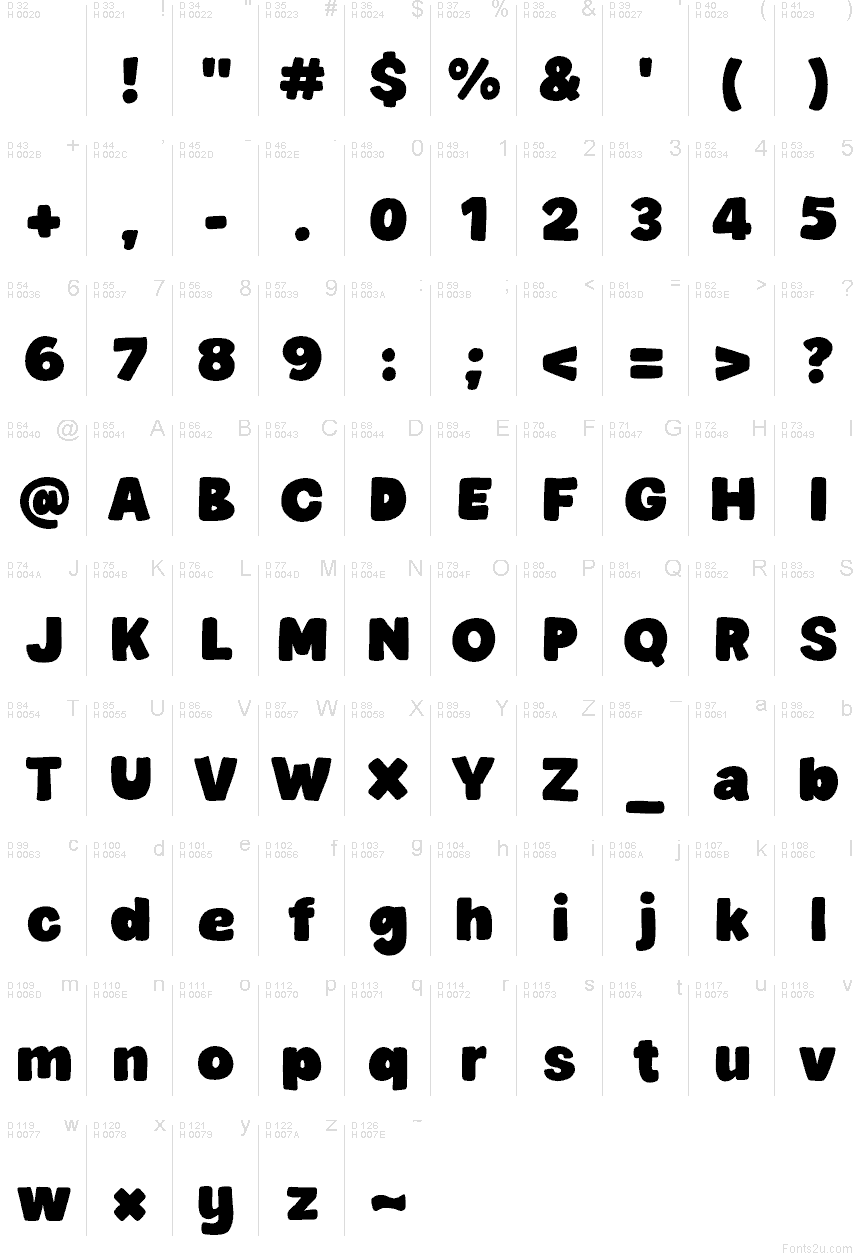
Midnight Society
Midnight Society font by MJType is a free cartoon display typeface with a cozy, slightly spooky charm. Its bold, rounded shapes feel like puffy ink blobs glowing in the dark, softening every word with a friendly, storybook energy. The letters sit close and chunky, giving headlines a strong, unified voice that still feels playful rather than loud.
Using Midnight Society, you can bring instant character to kids’ book covers, Halloween party posters, classroom materials, playful logos, streaming thumbnails, and quirky social graphics. This free font shines when it’s big and bold, where its pillowy curves and inky weight can really breathe. For a simple pairing, match Midnight Society with a clean, neutral sans-serif for body text to keep the fun in the titles and the reading smooth below.